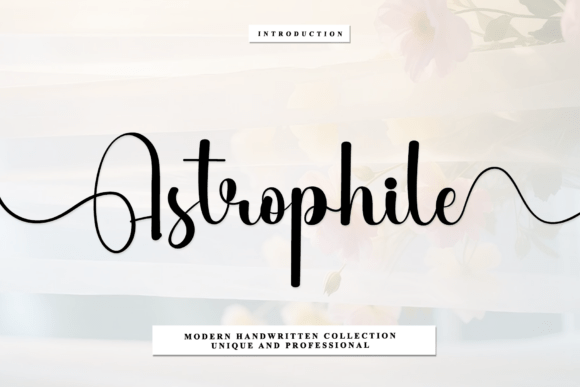
The Quest for the Perfect Font: Discovering Astrophile
Ah, the eternal search for the perfect font. I recall a particularly frustrating design project where I spent hours scouring the internet for a font that captured the essence of my client’s brand. The brief was simple: create an eye-catching logo that exuded a sense of timeless elegance. As I sifted through page after page of Google results, one font stood out from the rest – Astrophile. Its unique, handwritten charm instantly resonated with me, and I knew I had found the perfect fit.
A Personal Review of Astrophile
So, what makes Astrophile so special? Let’s dive into the details!
What I Love About Astrophile ✨
- ✅ Unique and beautiful touch: Every letter in Astrophile has a distinct character that sets it apart from other fonts.
- ✅ Timeless elegance: Astrophile’s handwritten style exudes a sense of sophistication and refinement.
- ✅ Versatility: This font is perfect for creating logos, branding materials, quotes, and more.
- ✅ Easy to read: Despite its unique touch, Astrophile remains highly legible, making it perfect for body text and headlines.
While Astrophile is an exceptional font, it’s not without its quirks. For instance:
- ⚠️ Limited availability of stylistic alternates: Astrophile’s range of alternates is somewhat limited, which may not appeal to designers seeking more variation.
- ⚠️ May not be suitable for very small font sizes: Astrophile’s elegant lines and flourishes may become lost at very small font sizes.
The Story Behind Astrophile
While the origins of Astrophile are shrouded in mystery, it’s said that the font was inspired by the celestial bodies that fill our universe. The font’s creator, a talented typographer, sought to capture the essence of the stars in a beautiful, handwritten font.
| Font Name | Astrophile Font |
| Author | Sansana |
Q: What is Astrophile’s personality?
A: Astrophile exudes a sense of timeless elegance and sophistication, making it perfect for designs that require a touch of refinement.
Q: Is Astrophile suitable for body text?
A: While Astrophile is highly legible, it’s best suited for headlines and titles. For body text, consider pairing it with a more traditional font.